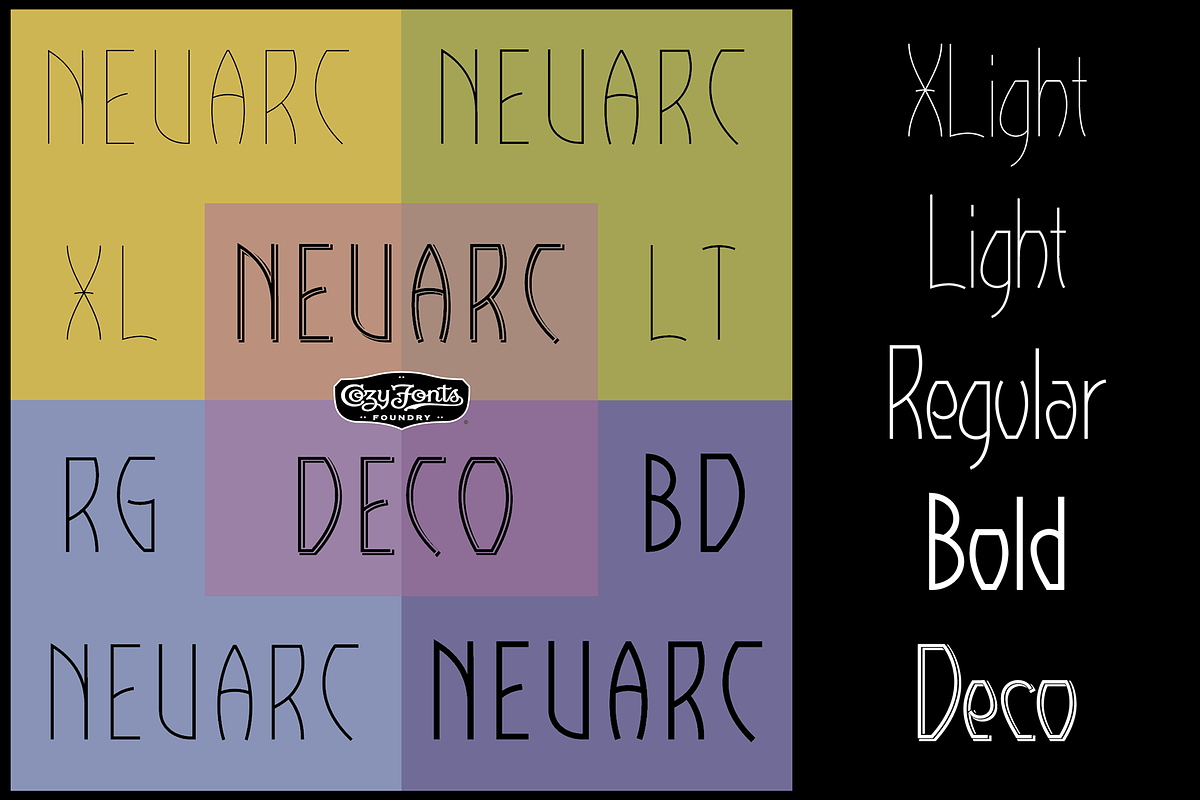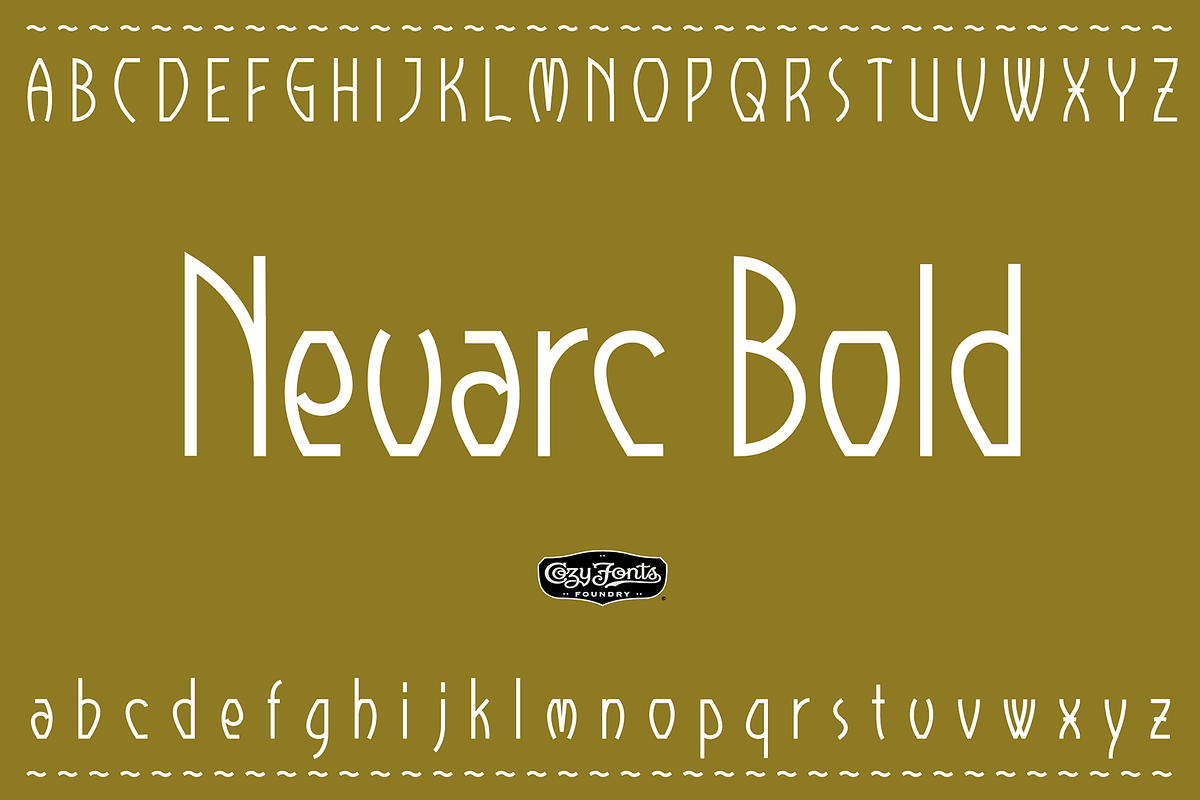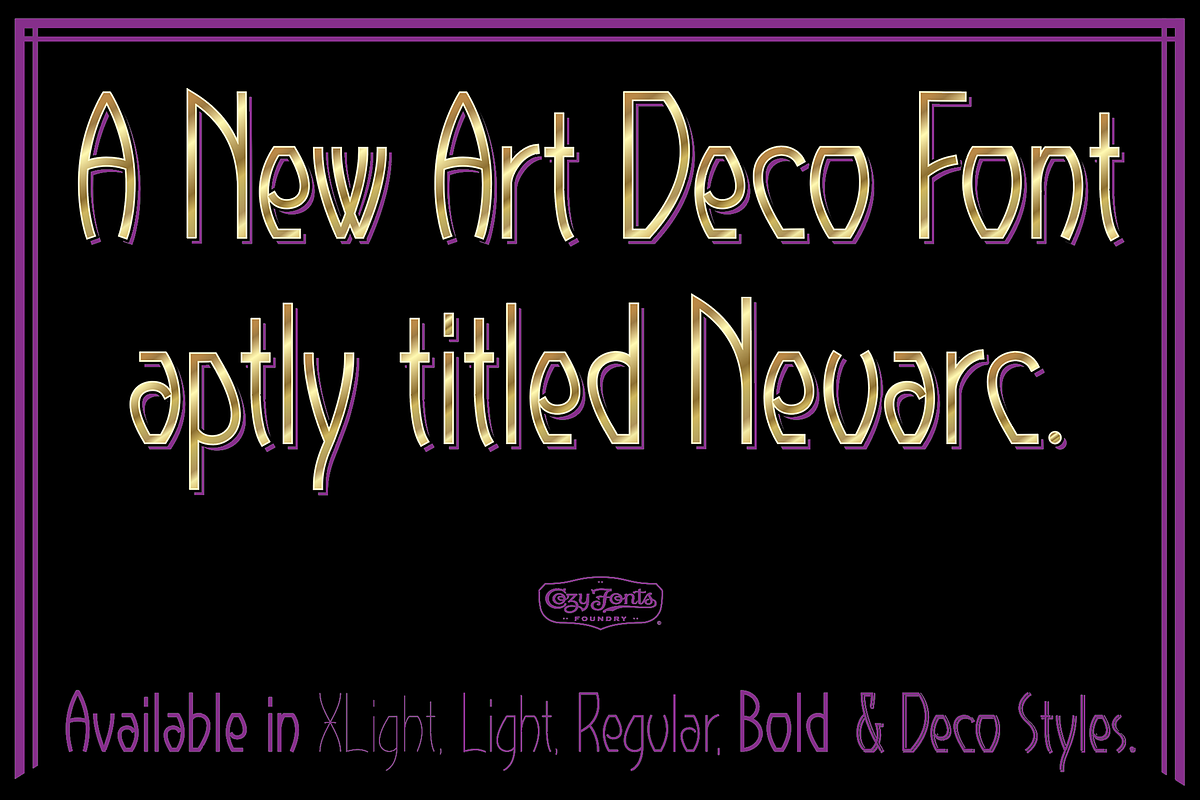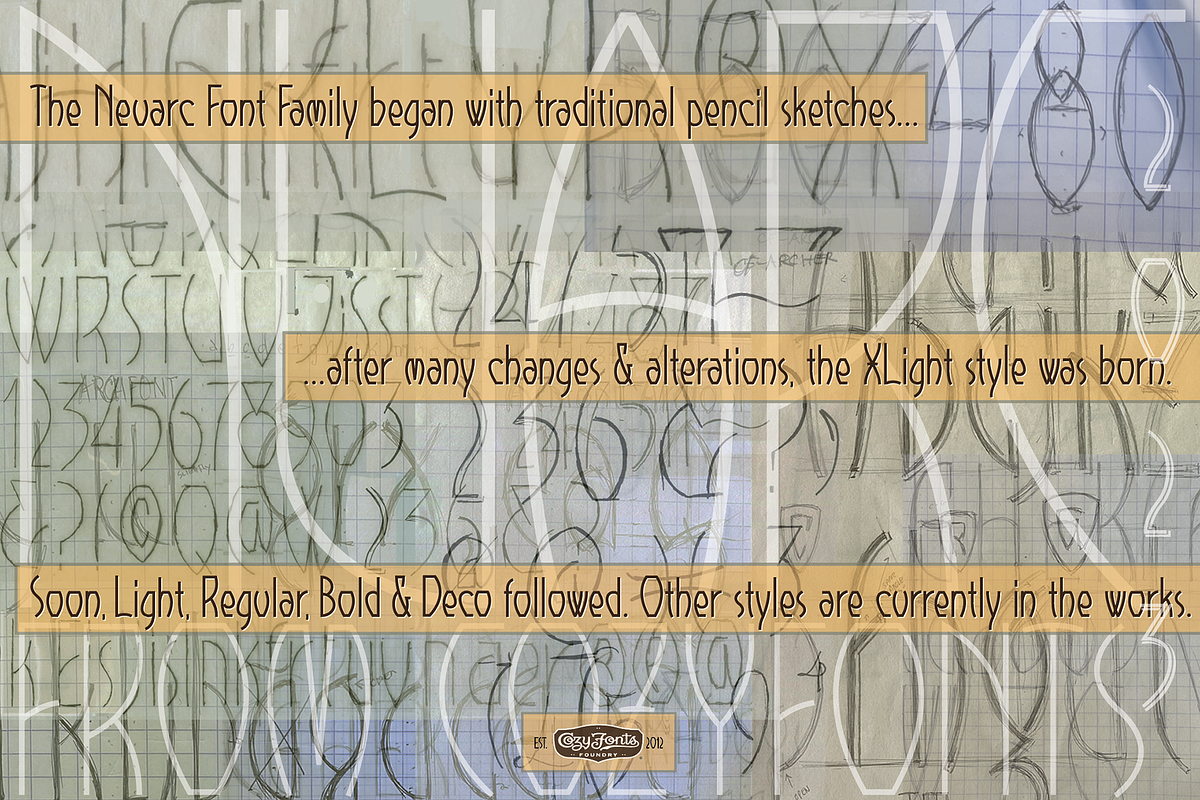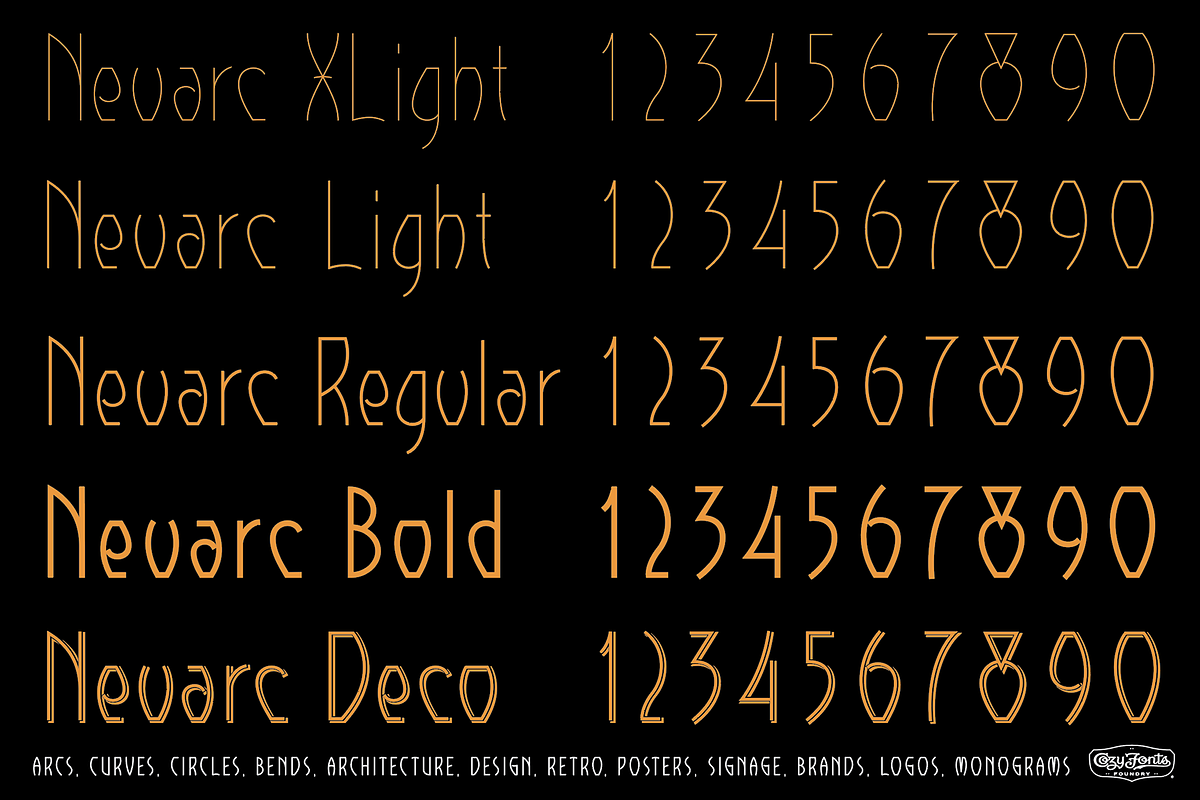
Neuarc Bold
Neuarc Font Family
This is the 20th font family of CozyFonts Foundry, established 10 years ago in 2012 with the release of Aladdin Bold. Neuarc is based loosely on arcs and curves, hence its naming.
As shown in one of the font posters that serve to showcase this font, a collage of rough sketches is displayed as the poster’s background. These hand-drawn pencil drawings were worked and reworked and final drawings were scanned and built-in Adobe Illustrator and transferred to glyph windows, glyph by glyph, in Fontlab 8.
The 5 styles, so far, are reminiscent of The Art Deco Era of Design between the 1030s and 1950s. Neuarc also has its own footprint with several characters that stand out, eg. A, 8, &, B, ?, $, 5, w, x, a, c, e, etc. giving the reason for the ’Neu’ in the naming.
These letterforms & Numbers work extremely well in monograms. Each style has its own personality. From the ultra-chic Light style to the dominant cool Bold style, this family maintains uniform legibility at small to large sizes.
Meant primarily for display uses, Neuarc works well for posters, logos, headlines, packaging, branding, and signage for various applications. The Neuarc Deco style font will work well in titles and numbers of any application.